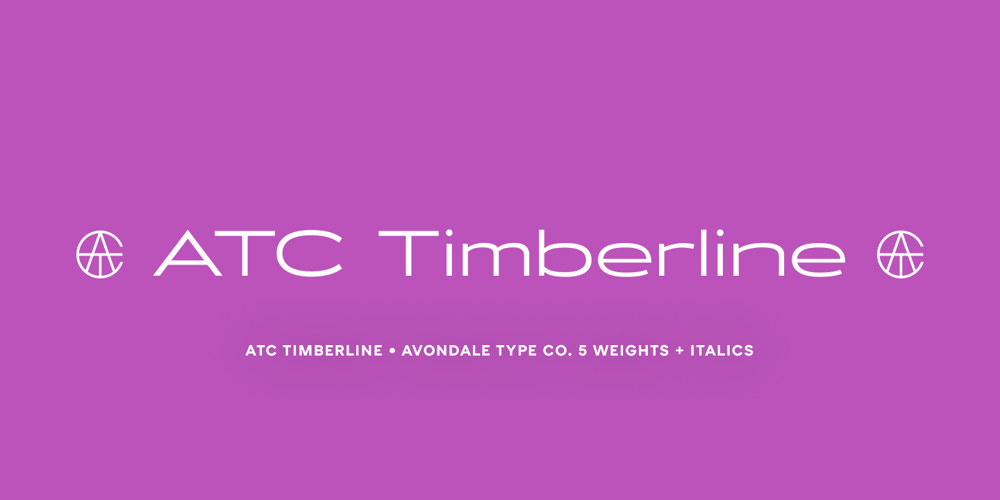
ATC Timberline
ATC Timberline font
ATC Timberline Font Family was designed by Christian Dexter, Jason Schwartz and published by Avondale Type Co.. ATC Timberline contains 10 styles and family package options. ATC Timberline, is an ultra wide-set sans-serif typeface. With its sharp points and extended curves, ATC Timberline feels just at home in mid-century modern as it does in forward-looking modern settings.Contains 370+ glyphs, full alphabet, ligatures, numberals, accents and punctuation. File type included in download is .otf.ATC Timberline was released in 2016.